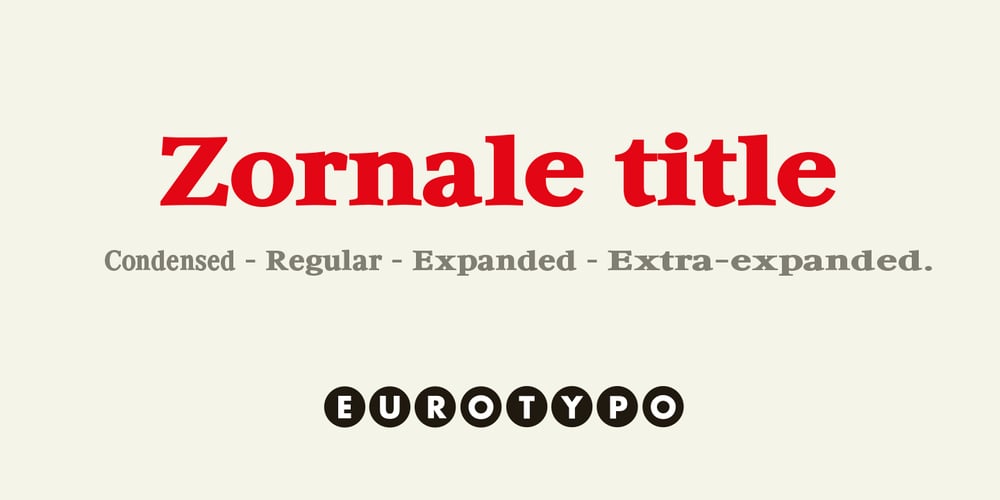
Zornale Title Font Family was designed by Olcar Alcaide and published by Eurotypo. Zornale Title contains 4 styles and family package options. Zornale TITLE is a family of four fonts that can be combined with the rest of Zornale family (text and caption).These fonts have been designed with precise kerning and full OpenType features: Old-style figures, swashes, stylistic alternates, ligatures and case-sensitive forms.